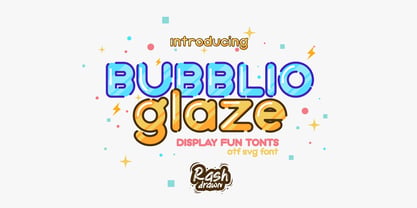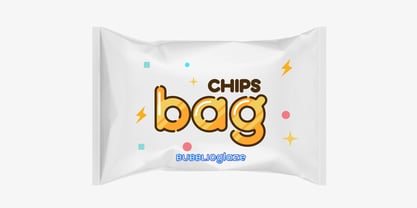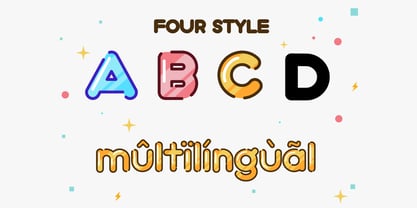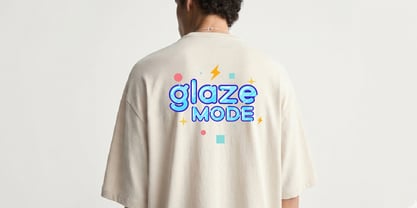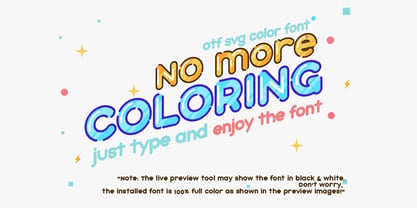
Bubblio Glaze
by Rashdrawn
The Bubblio Glaze Font Family was designed by Dadan Wildan and published by Rashdrawn. Bubblio Glaze contains 4 styles and family package options. More about this family
Bubblio Glaze – Playful Bubble Font
Say hello to Bubblio Glaze, a fun and eye-catching bubble display font designed to bring joy, color, and personality into your designs. With its soft rounded shapes, bold outlines, and sweet glaze-inspired style, this font is perfect for playful and modern projects.
Whether you're working on branding, packaging, social media, or kids-related designs, Bubblio Glaze delivers a cheerful and standout look instantly.
• Uppercase & Lowercase
• Numbers & Punctuation
• Multilingual Support
• Rounded bubble style
• Color Font included (No need to color manually!)
• Ready-to-use vibrant style — just type and enjoy
• Works great for eye-catching headlines
Designers: Dadan Wildan
Foundry: Rashdrawn